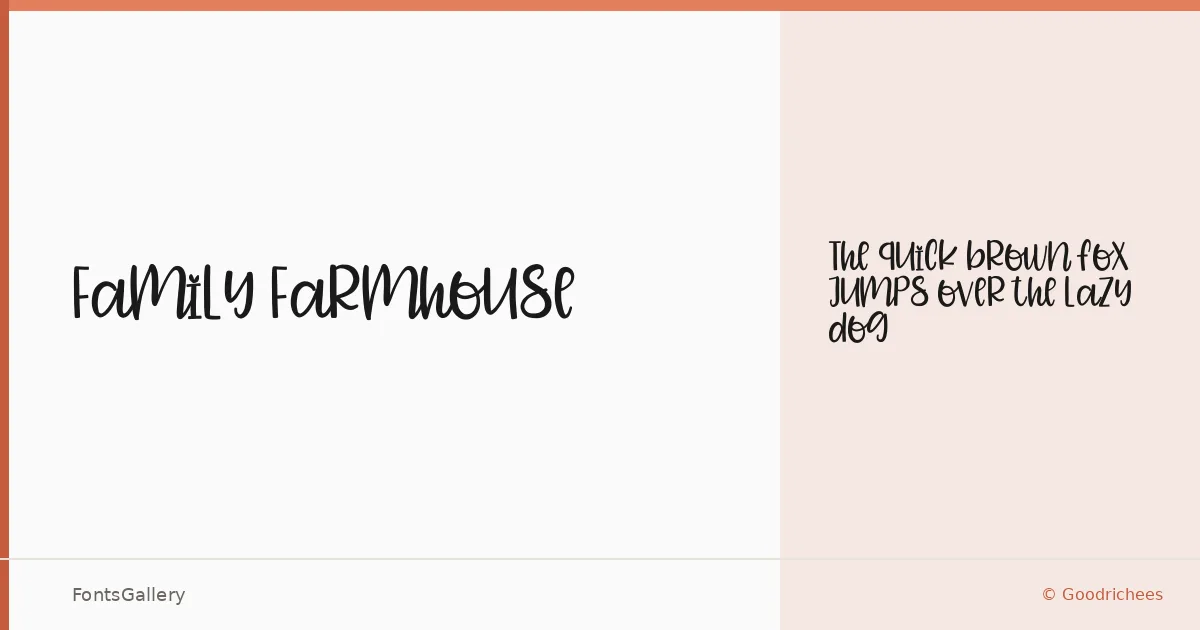
About Family Farmhouse Font
There is an unhurried looseness to this script — the kind of lettering you might find chalked on a farmstand sign or brushed onto a gift tag with genuine care. Created by Goodrichees, Family Farmhouse arrives as a single Regular Farmhouse cut, delivered in both TTF and OTF formats.
The handwritten forms lean into a rustic, whimsical warmth without tipping into the overly casual. Strokes vary just enough to feel hand-drawn rather than mechanical, giving the face its playful character. It sits comfortably in that space between charming and legible — readable at poster scale, expressive at smaller sizes on a greeting card.
It suits branding work that calls for approachable personality, children's book titling, seasonal greeting cards, and social media graphics where a handcrafted feel matters. For contrast and balance, the listed pairing options — Canela, Helvetica, AQUA, Etna, and ABC Arizona — each offer a different register, from editorial elegance to clean neutrality, depending on the mood of the project.